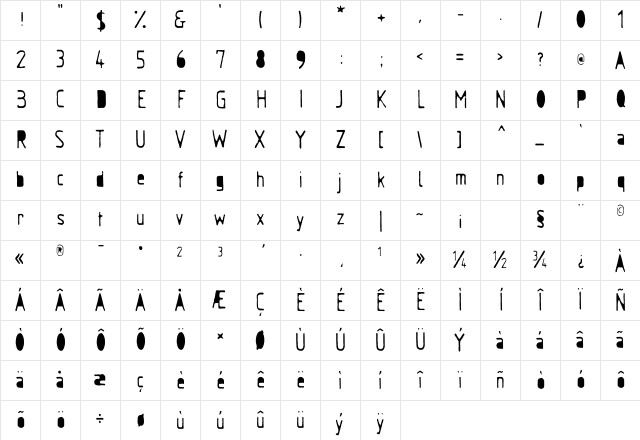
AlphaRuler is a composed and adaptable typeface that performs quietly and consistently across a wide range of design contexts. Its bold stroke weight gives it real presence on the page.
Who designed the AlphaRuler Bold font?
This font was published by ch Design: Albert-Jan Pool, . Published by FontShop International FontFont release. Check the technical specs section for copyright and designer details.